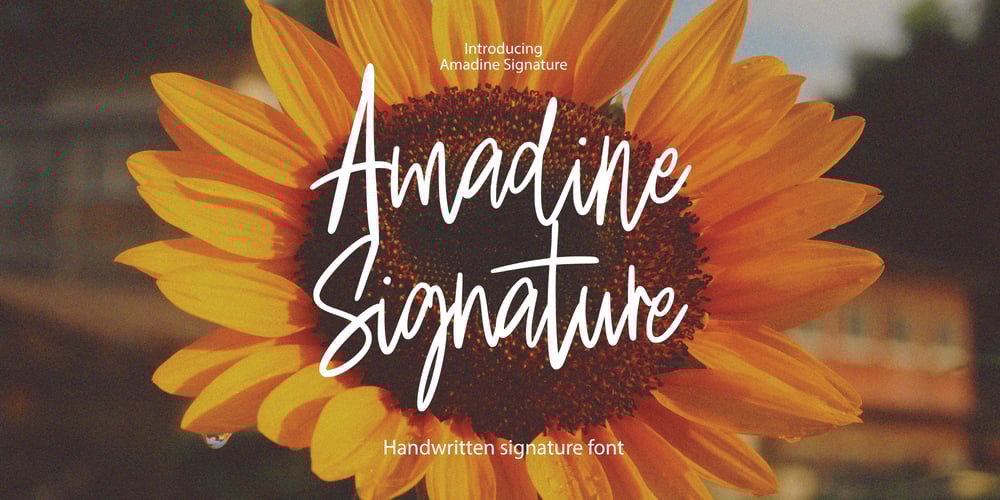
Amadine Signature Font Family was designed by Dzulka Elfira and published by Tebaltipis Studio. Amadine Signature contains 1 styles and family package options. Amadine Signature with a handmade Signature style, decorative characters and a dancing baseline! So beautiful on invitation like greeting cards, branding materials, business cards, quotes, posters, and more!!Amadine Signature come with 200+ glyphs. The alternative characters were divided into several Open Type features such as Swash, Stylistic Sets, Stylistic Alternates, and Ligature. The Open Type features can be accessed by using Open Type savvy programs such as Adobe Illustrator, Adobe InDesign, Adobe Photoshop Corel Draw X version, And Microsoft Word. And this Font has given PUA unicode (specially coded fonts). so that all the alternate characters can easily be accessed in full by a craftsman or designer.If you don’t have a program that supports OpenType features such as Adobe Illustrator and CorelDraw X Versions, you can access all the alternate glyphs using Font Book (Mac) or Character Map (Windows).